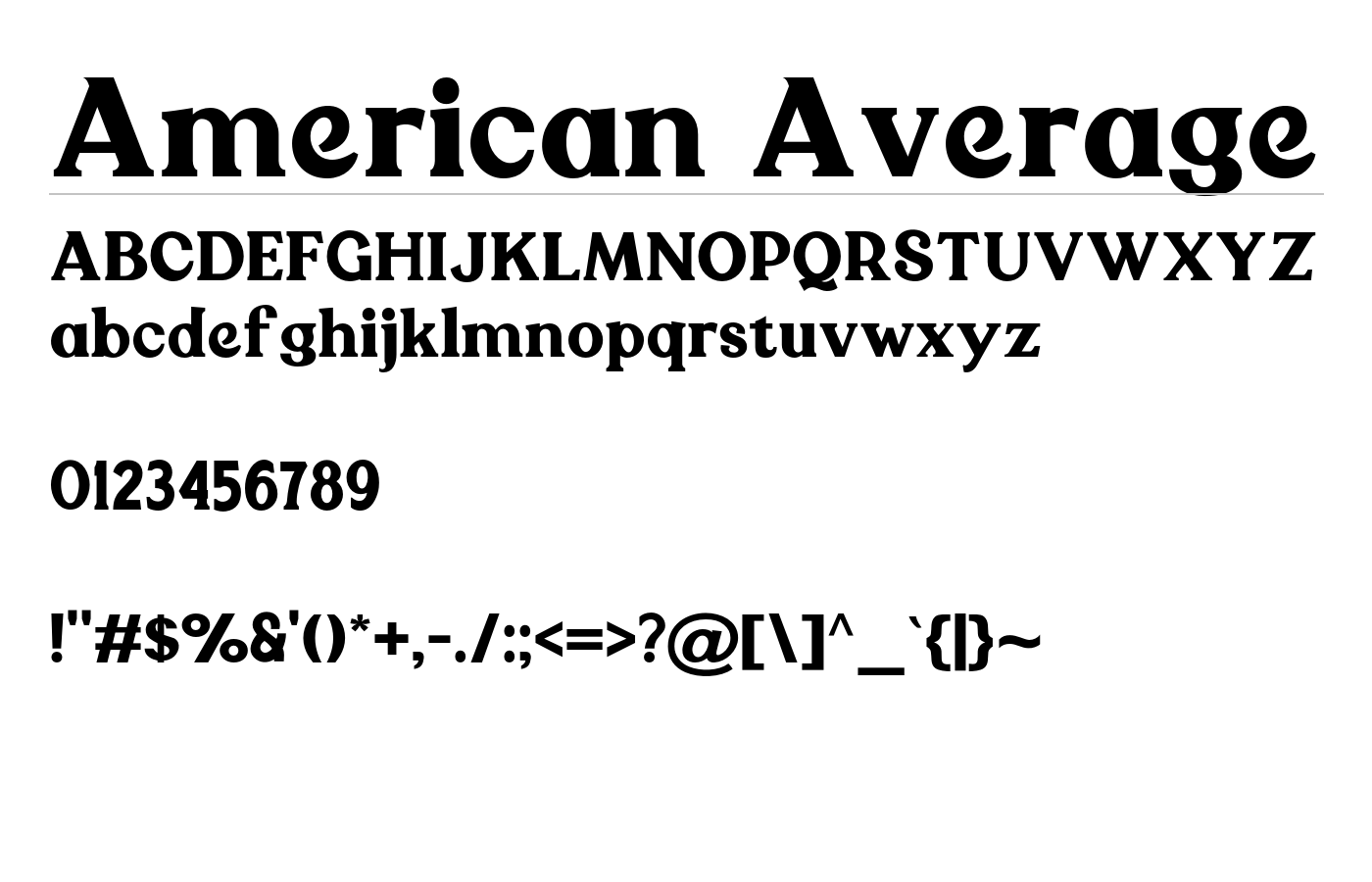
American Average is a bold serif font with a strong, confident presence characterized by its moderate contrast between thick and thin strokes and distinctive bracketed serifs. Its slightly condensed width and relatively large x-height create a sturdy, approachable appearance, making it suitable for impactful headlines and branding that require a vintage yet versatile feel. This typeface works well for editorial design, packaging, and logos where a classic American style with a touch of personality is desired.
American Average Font
About American Average Font
| Font family | American Average Font |
| Designer | Aldi Ramdan |